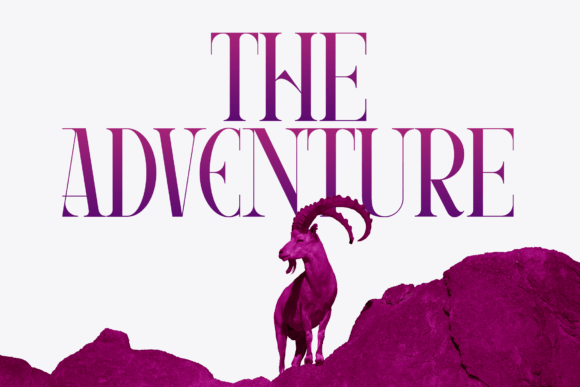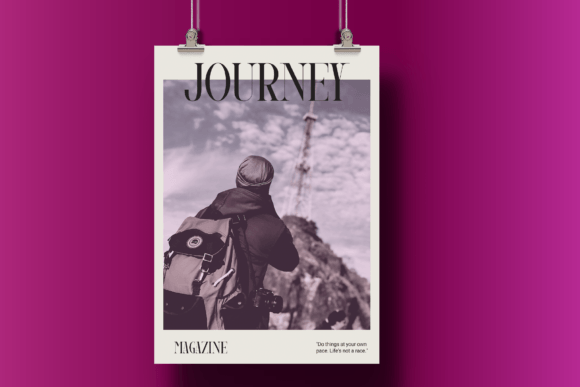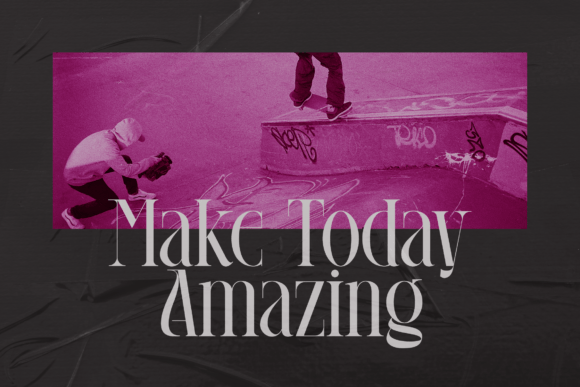
Introduction to Meaglez Font
Have you ever been working on a creative project, staring at a blank screen, trying to come up with the perfect design element? The right font can make all the difference, and that’s exactly what the Meaglez Font can do for you. This elegant and cool display font is a game-changer for designers looking for a high-quality design resource.
With its sleek and sophisticated look, Meaglez Font is the perfect choice for logos, branding, invitations, stationery, wedding designs, social media posts, and so much more. The fact that it’s PUA encoded means you can access all of the amazing glyphs and ligatures with ease, giving you endless creative possibilities.
Key Features of Meaglez Font
- High-quality design resource suitable for creative projects, offering a unique and stylish look.
- Unique characteristics include a playful and modern design style, making it perfect for creative and innovative projects.
Honest Review: Meaglez Font
I recently stumbled upon the Meaglez Font, and I must say it’s been a pleasant discovery. As a designer, I’m always on the lookout for high-quality design resources to enhance my creative projects. The Meaglez Font fits the bill, offering a unique and modern style that’s perfect for a variety of applications.
One of the standout features of the Meaglez Font is its transparent background, making it easy to overlay on top of other design elements. This flexibility is a major plus, allowing designers to get creative with their projects.
- What works well:
- Unique and modern style ✨
- High-quality design ✨
- Transparent background ✨
- Limitations:
- May not be suitable for traditional or formal designs ⚠️
- Limited font weights and styles ⚠️
Getting the Most Out of Meaglez Font
To get the most out of Meaglez Font, use it in conjunction with other high-quality design resources. Experiment with different font sizes, colors, and layouts to create visually appealing designs.
Meaglez Font is ideal for various creative projects, including:
- Brochure design
- Infographic design